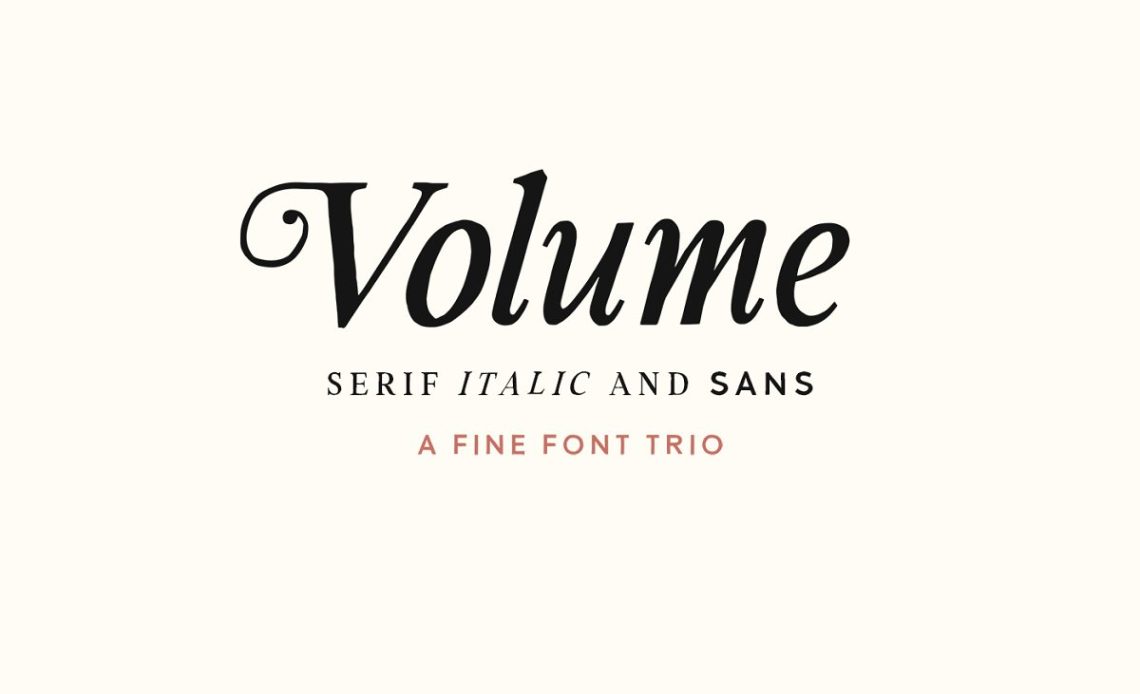
Looking for the perfect font for your wedding album? Look no further than Volume – Handcrafted Font Trio! This unique font collection, created by Tom Chalky, offers a fresh take on the classic trio of serif, italic, and sans serif fonts.
Volume is professionally imperfect, bringing a formal touch to the handcrafted genre of font design. Its versatility makes it suitable for a wide variety of design briefs, so you can use it for everything from invitations to menus to social media posts.
But Volume isn't just versatile – it's also compatible and multilingual. The fonts are available in OpenType format, which is accepted in most design software, including mobile and tablet apps. And with multilingual support for Basic Latin, Western European, Euro, and Pan African Latin, you can use Volume to add a touch of elegance to your designs no matter where you are in the world.
What's included? Volume TC Regular and Volume TC Regular Italic (real italics) offer classic options for your font needs, while Volume TC Sans brings a modern touch to the trio.
So why choose Volume for your wedding album or other design project? Because it offers a unique, handcrafted look that will set your work apart from the crowd. It's versatile, compatible, and multilingual, so you can use it in a wide range of projects. And with its elegant, sophisticated design, it's sure to make a lasting impression on anyone who sees it.